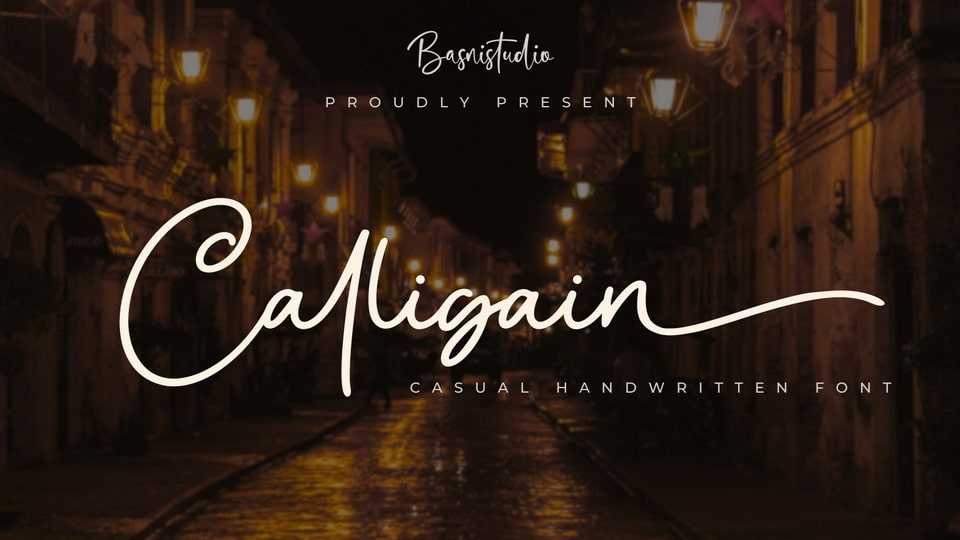
Download Calligain font, a beautifully crafted handwritten typeface that adds a natural, versatile touch to everything from branding and social media to invitations and packaging.